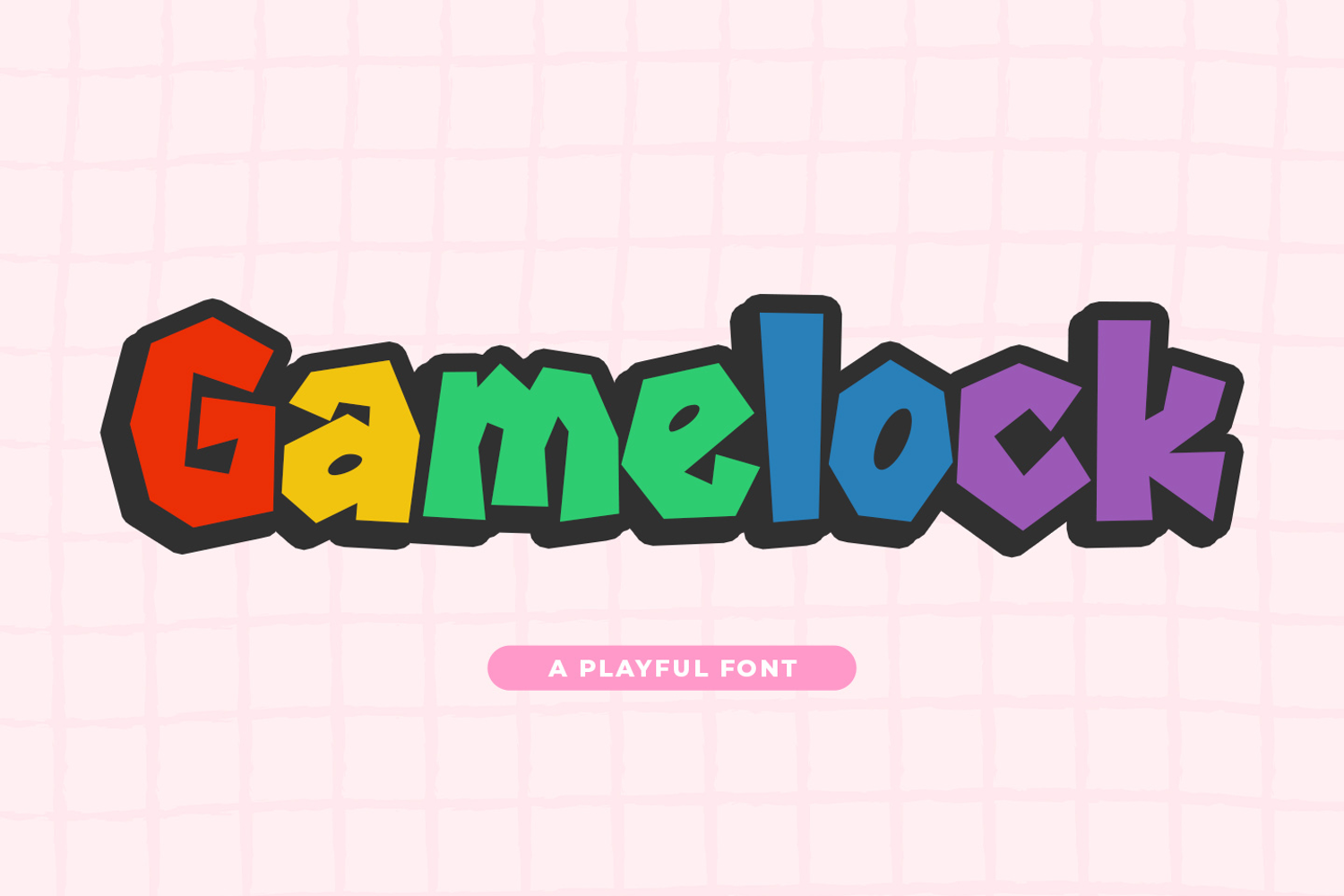
Gamelock
introducing
GAMELOCK
- a playful font-
GAMELOCK is great for games, branding, quotes, logos, t-shirt designs, tote bag designs, cards, banners, social media, and more.